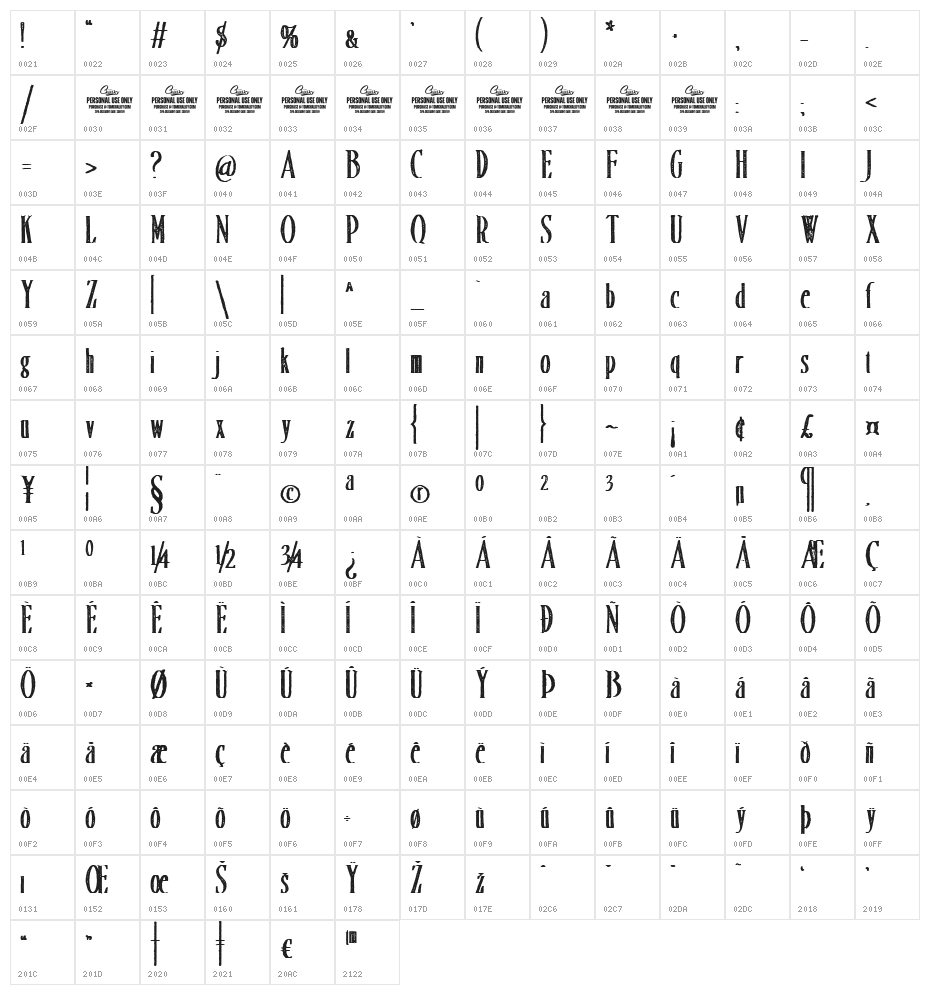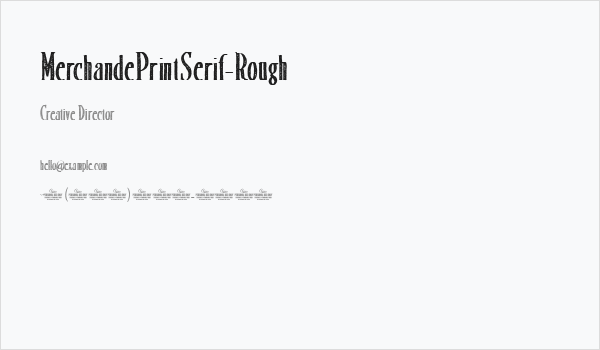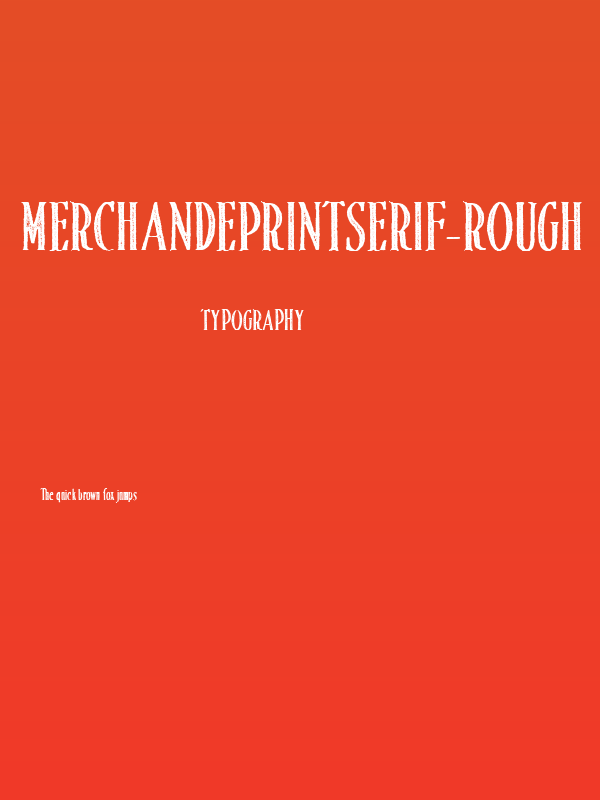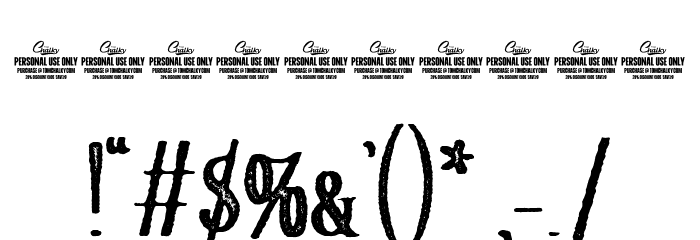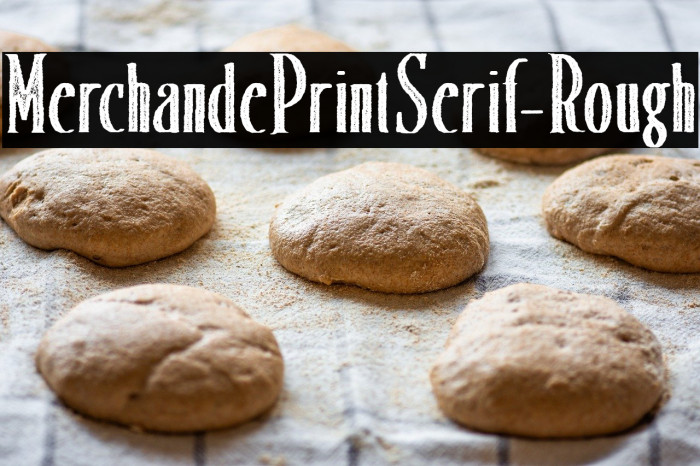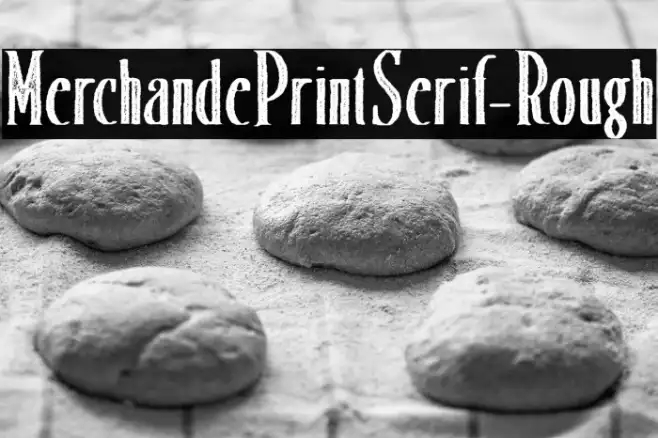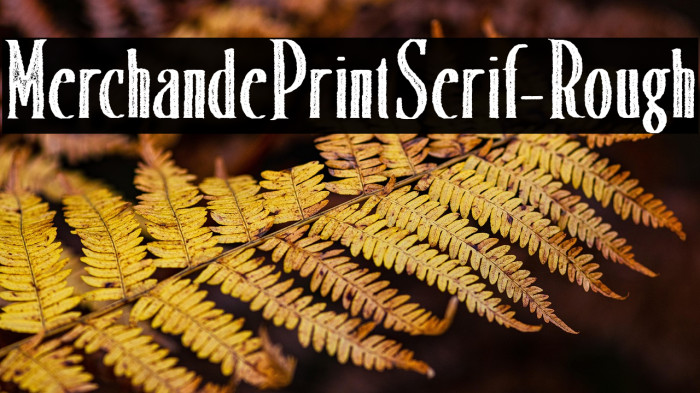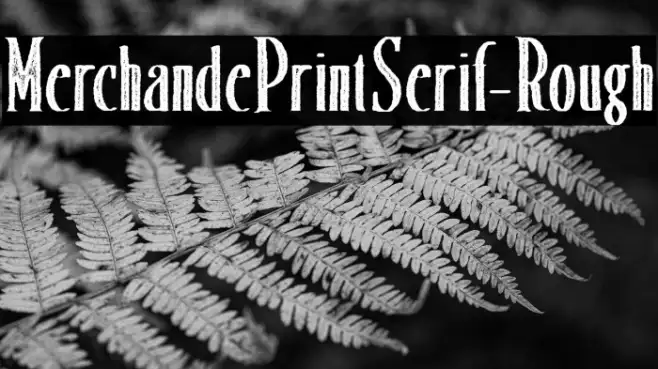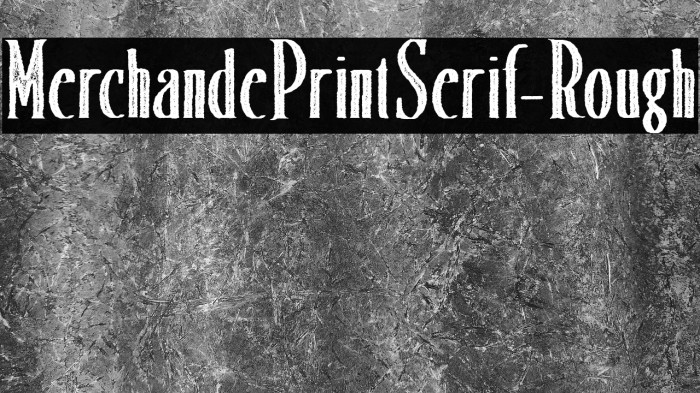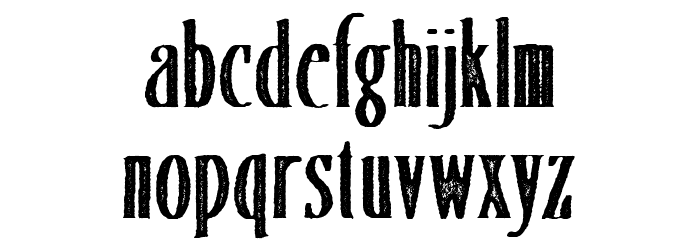
MerchandePrintSerif-Rough Font
MerchandePrintSerif-Rough Description
This font features a rough, textured appearance that gives it a vintage and handcrafted feel. The uppercase letters are bold and slightly condensed, with a distinct serif style that adds a touch of elegance. The lowercase letters maintain the same rough texture, providing a cohesive look across the typeface. The numerals and special characters are designed to match the overall aesthetic, making them suitable for creative and artistic projects. The font's unique style is perfect for designs that require a rustic or retro vibe, such as posters, logos, and branding materials.
| Use Case | Logos, Posters, Branding |
| Proposed Projects | Ideal for vintage-themed posters, rustic branding, and artistic logos. |